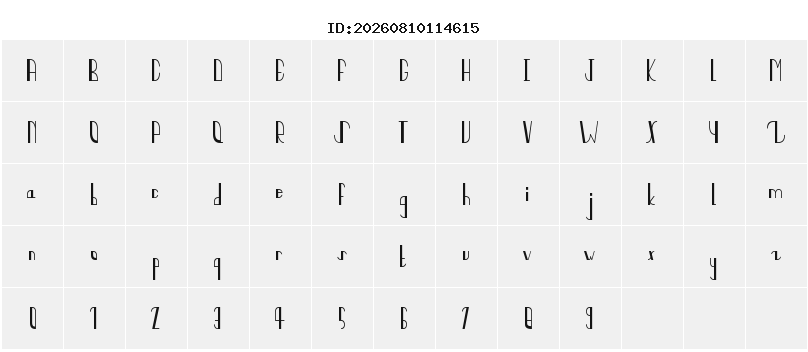
quater circles Preview
• Font Name: quater circles
• Font ID: quater circles:Version 1.00
• Full Font Name: quater circles
• Version: Version 1.00 October 31, 2013, initial release
• PostScript Name: quatercircles
About quater circles.ttf
quater circles.ttf is a modern, elegant sans-serif font designed for ultimate readability and visual harmony. Perfect for branding, headlines, web design, and print materials.